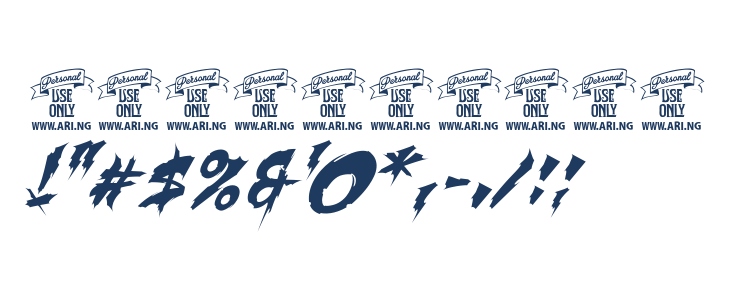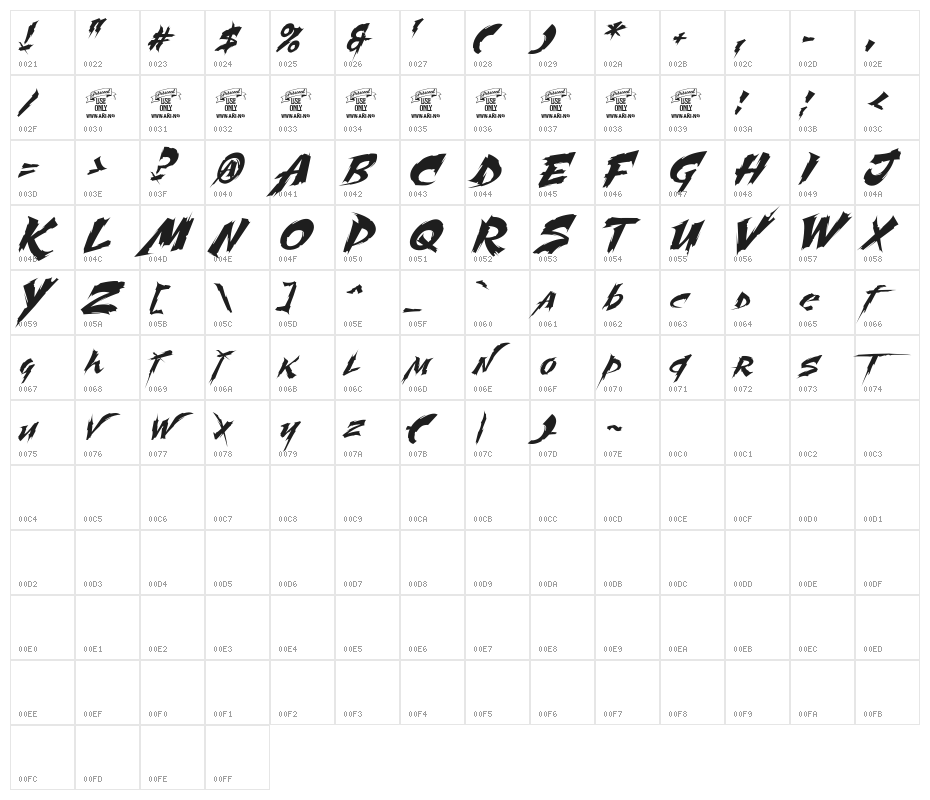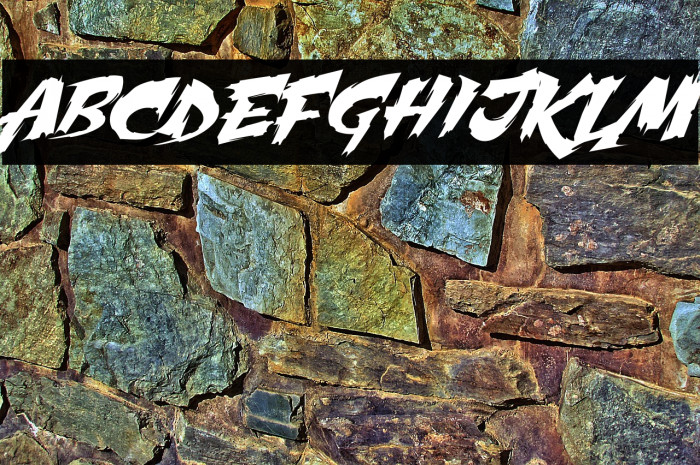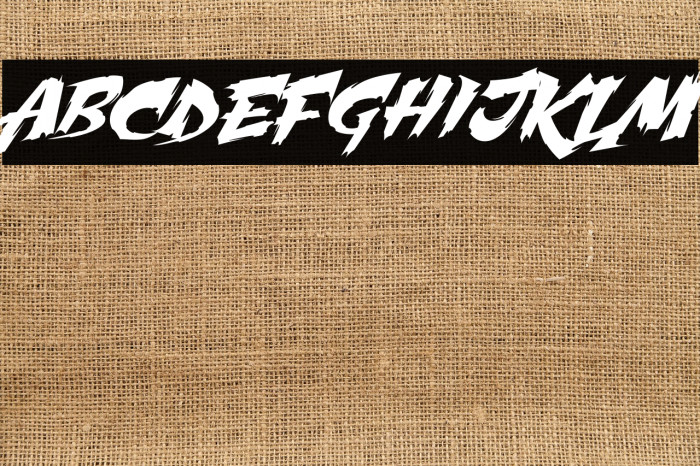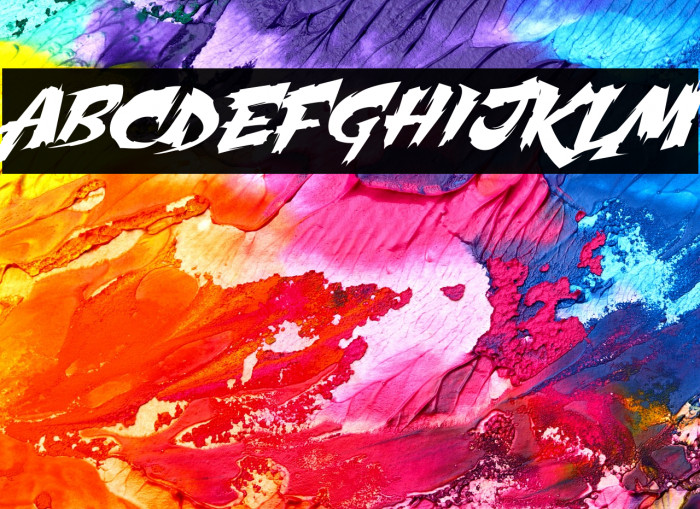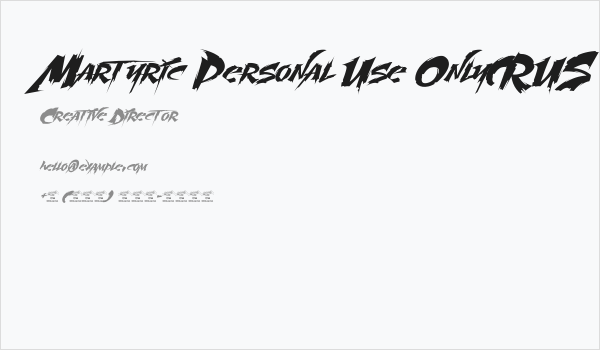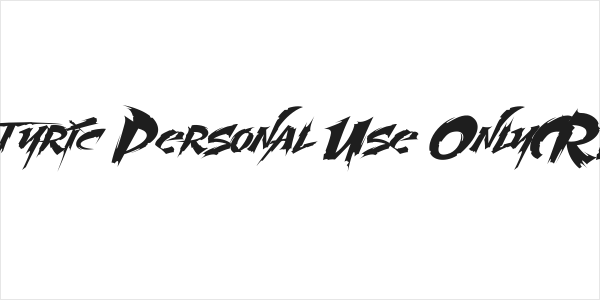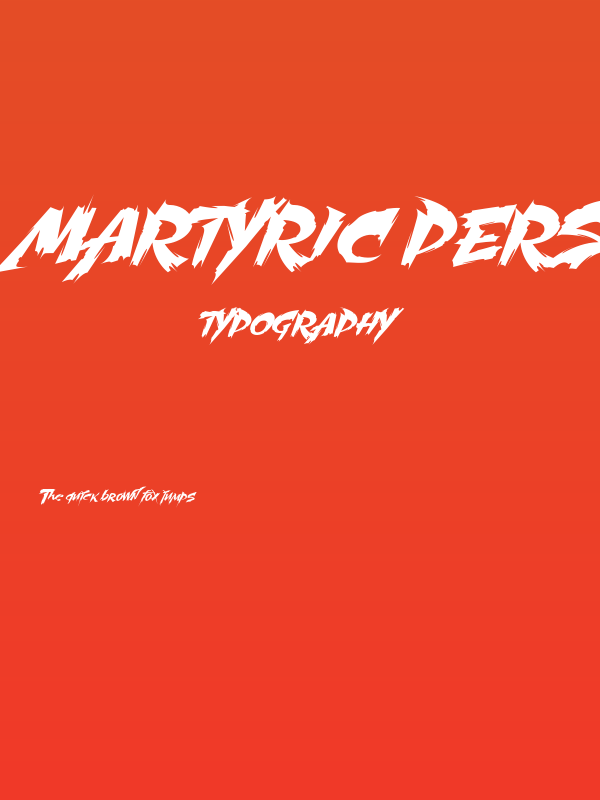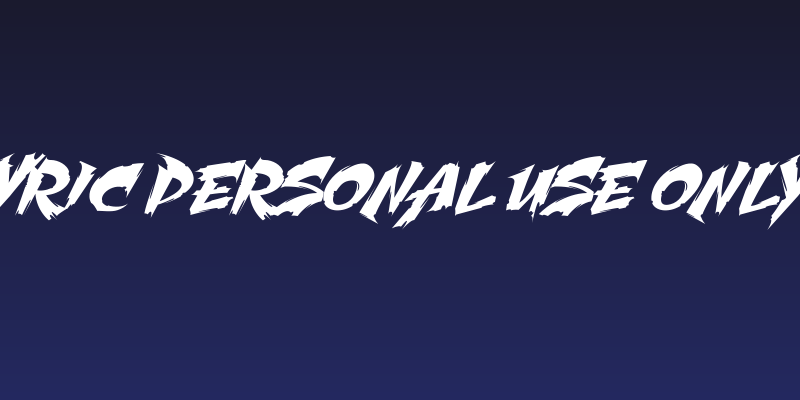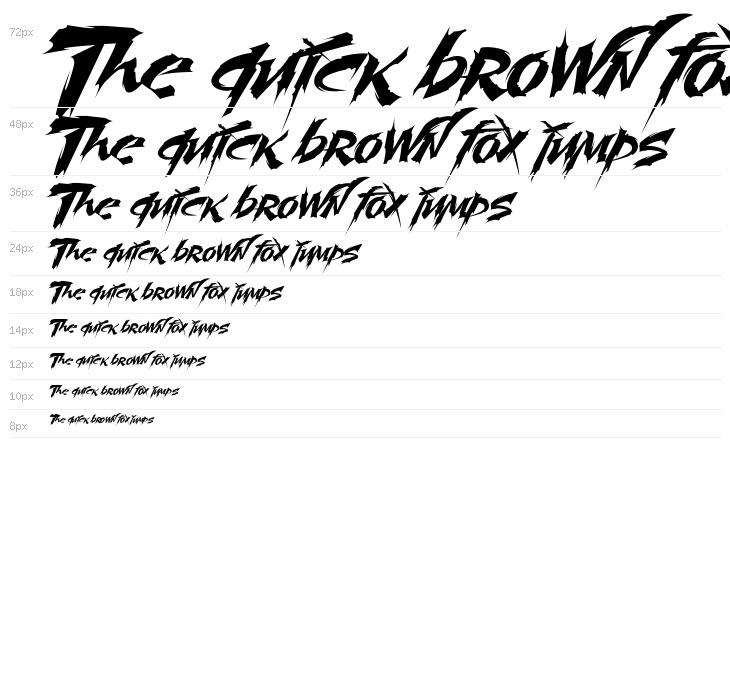
Martyric Personal Use Only(RUS Font
Martyric Personal Use Only(RUS Description
This font features a bold and aggressive style with sharp, jagged edges that give it a dynamic and energetic appearance. The characters are heavily stylized, with exaggerated angles and a sense of movement, resembling brush strokes or graffiti art. The uppercase and lowercase letters maintain a consistent design, while the numerals and special characters complement the overall aesthetic. This font is designed to capture attention and convey a sense of urgency or intensity.
| Overall Style | Modern, Energetic |
| Proposed Projects | Ideal for music album covers, sports team logos, streetwear branding, and event posters. |